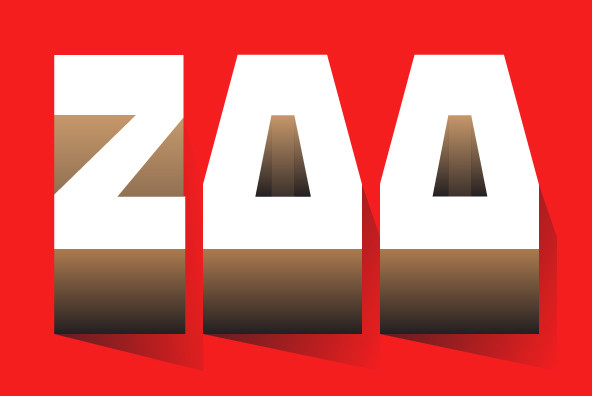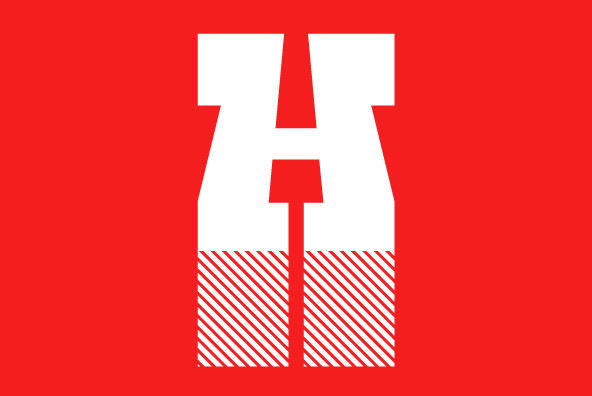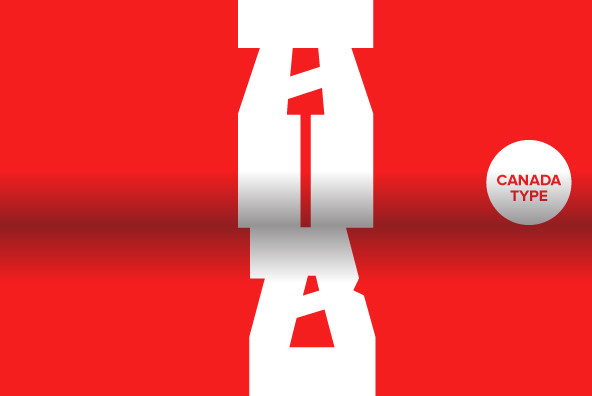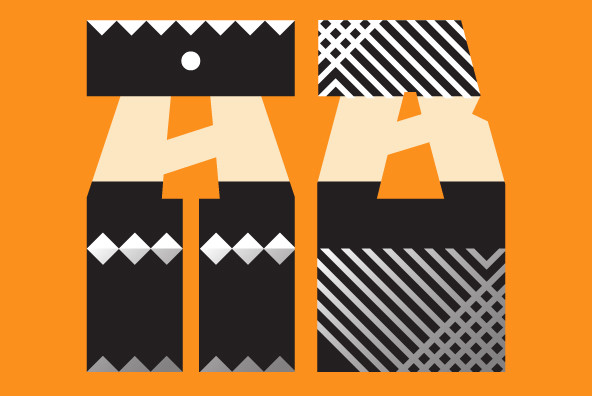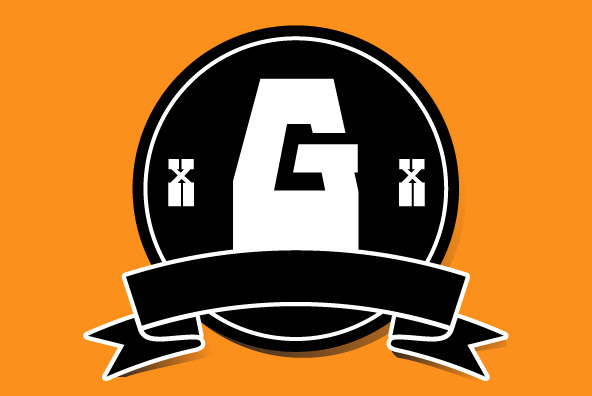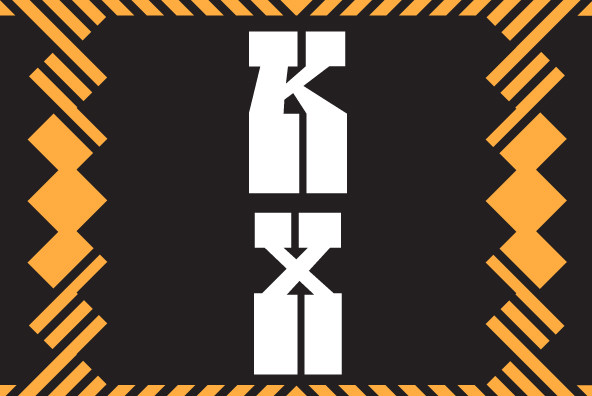
Guillotine is inspired by an uncredited early 1970s film face called Rhythm Bold. While the original film type had plenty of round forms that were uneven and somewhat badly drawn to fit within the overwhelming pop wave of the time, this digital incarnatio...
Guillotine is inspired by an uncredited early 1970s film face called Rhythm Bold. While the original film type had plenty of round forms that were uneven and somewhat badly drawn to fit within the overwhelming pop wave of the time, this digital incarnation disposes of all curves, relies on a much sharper grid, and adheres to specific parameters of stroke widths and angles. Guillotine is a thick poster classic, mechanically constructed yet clearly exhibiting the idiosyncratic traits of hand drawing. Its forms embody the amalgamation of a multitude of influences, such as woodcut letters, punch card forms, and the unique art nouveau concepts that were popular in the 1960s and 1970s. The totality of the font is a strong display aesthetic that plays very well anywhere the eye is meant to see a strong but casual, sharp but hand crafted message. This font comes in all popular formats for all common platforms, and includes expanded language support to cover Western, Eastern and Central European Latin languages, as well as Baltic, Celtic Welsh, Esperanto, Maltese, and Turkish. A few alternate characters are sprinkled throughout the character map.